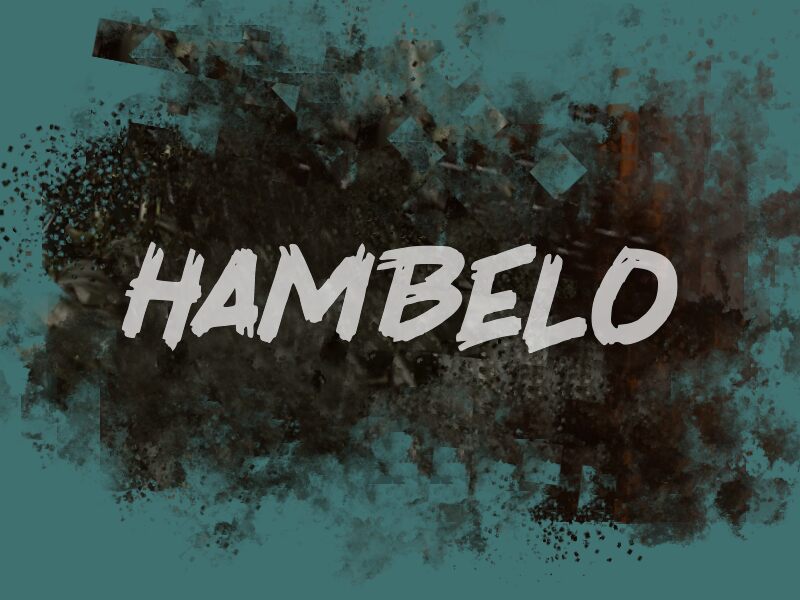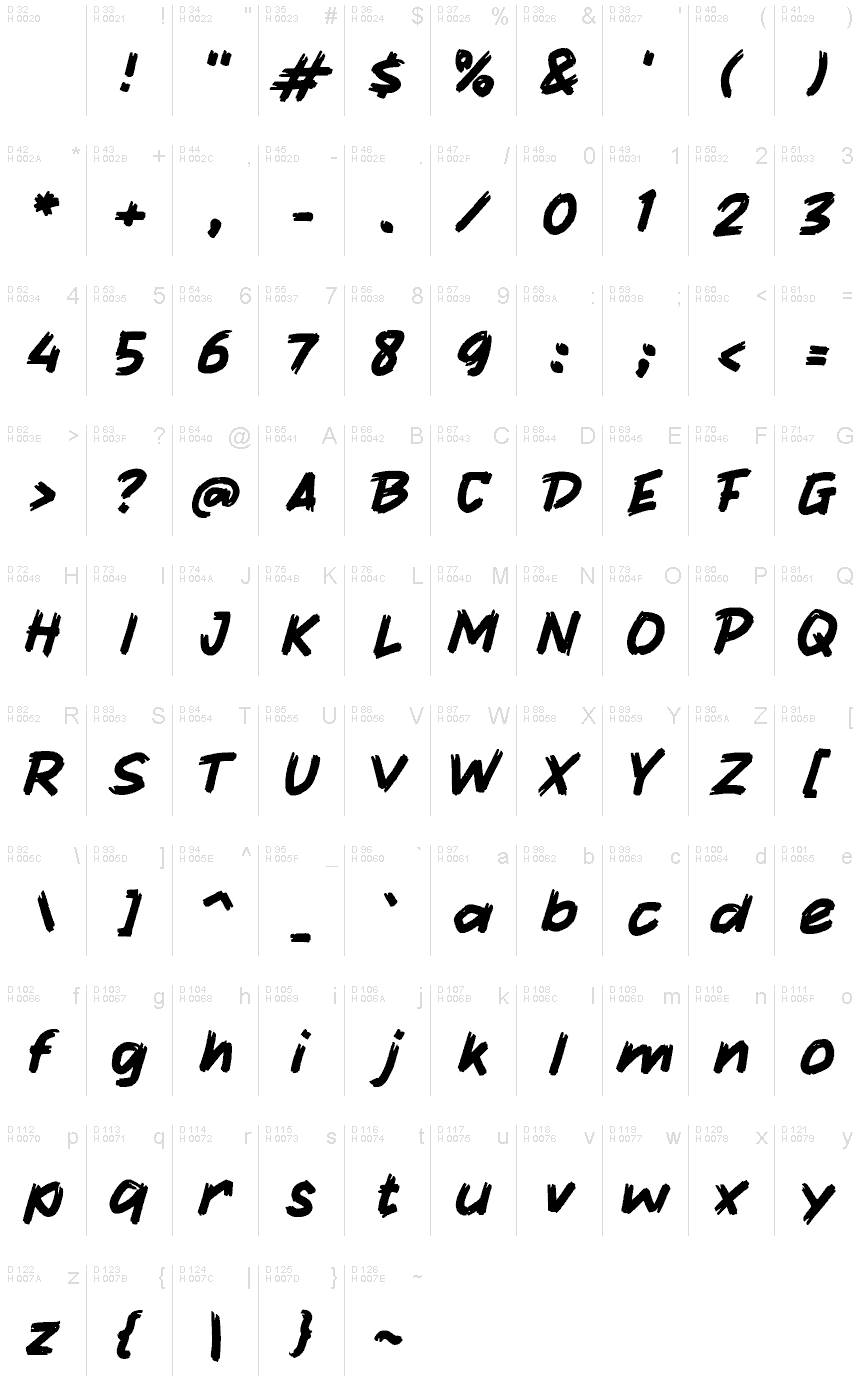
HAMBELO
Hambelo font by wep is a free brush font that exudes a bold and contemporary appeal. Its casual, expressive, and energetic flow brings a sense of artful spontaneity to every project. Creating it with the use of pen-like strokes’ simulation, its rhythmic characters make for readable body text or artistic headlines of all sizes which makes this typeface particularly versatile.
Decorate your book designs from covers to last pages, titles on magazine covers or articles, your website banners, blog templates and headings, stickers etc. You can also use it for personalizing different kinds of invitations such as weddings or parties in general.